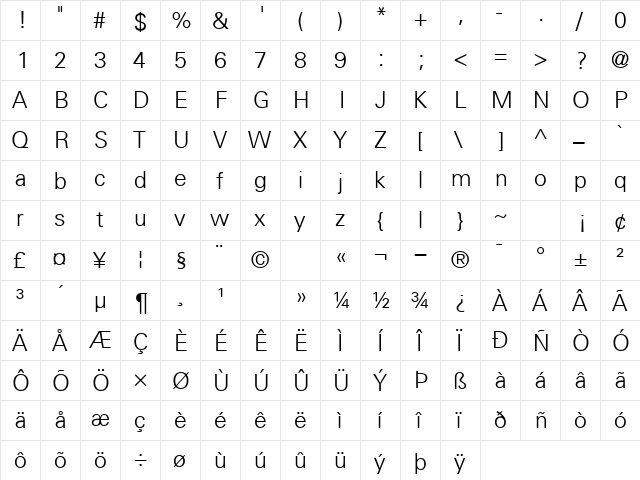
UnfugSmall Normal
Design Context for UnfugSmall Typeface
UnfugSmall is a composed and adaptable typeface that performs quietly and consistently across a wide range of design contexts.